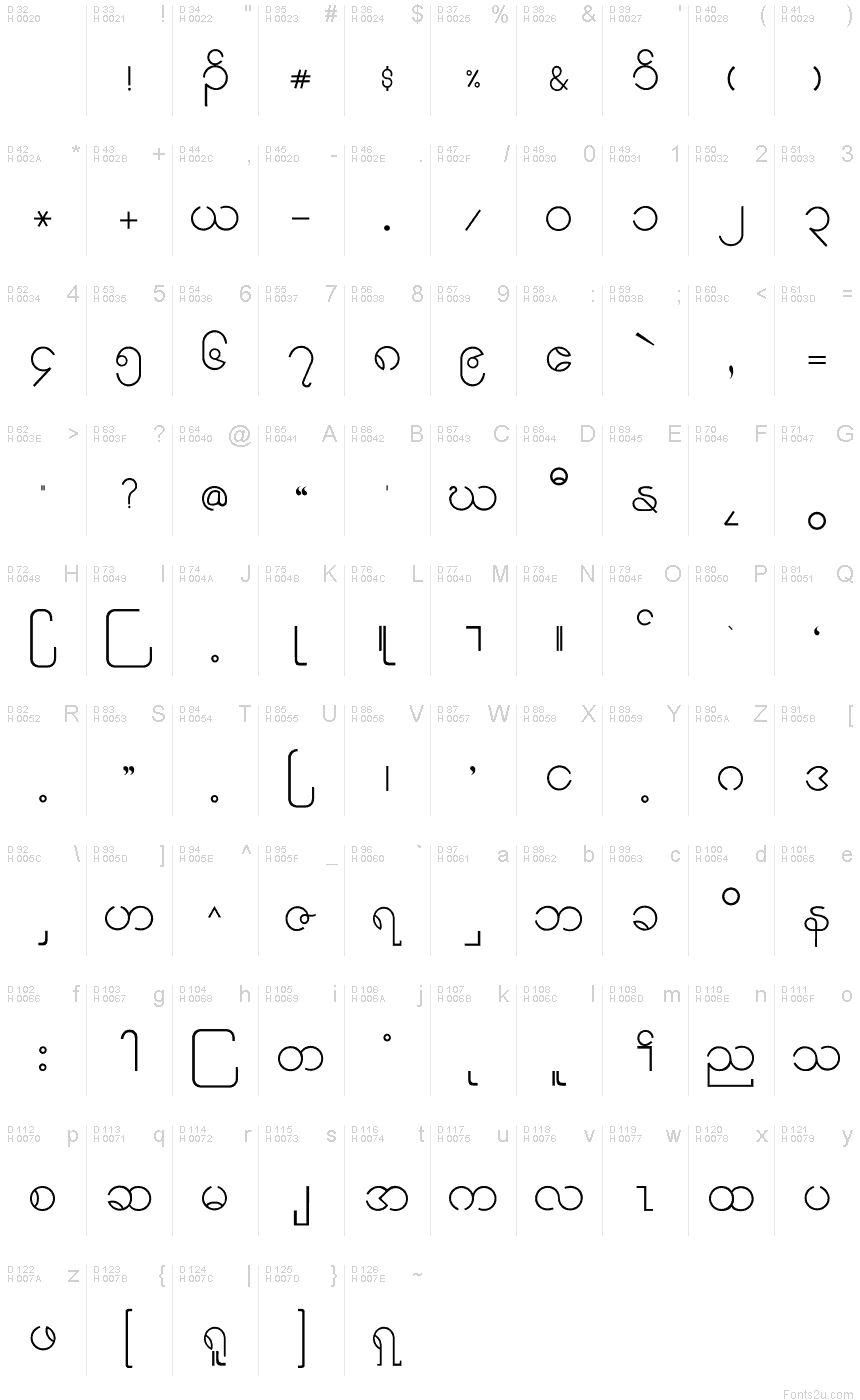
Karen 3 0 is a free Burmese-script display font with broad circular forms, a clean single-weight line, softly squared corners, and occasional pointed turns. Its repeated loops and open joins make the lettering feel spacious and distinctly geometric.
Designers creating material for Myanmar communities could use its approachable rounded drawing in cultural posters, festival graphics, and educational publishing, where the flowing sequence of forms can become a prominent decorative element rather than neutral supporting type. Community event materials and arts programming are equally convincing settings because the generous curves connect text with circular ornaments, illustrative borders, and other line-based graphics.